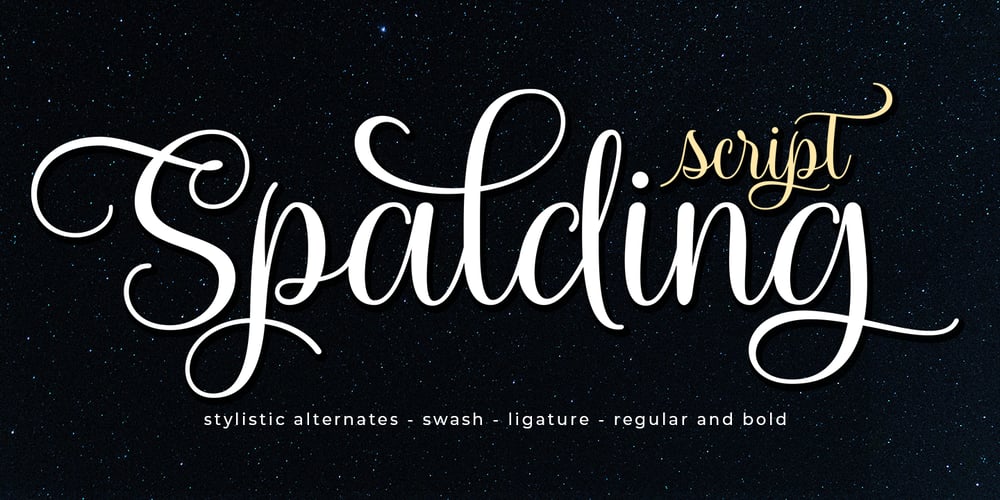
Spalding Script
Spalding Script font
Spalding Script Font Family was designed by Mur Zani and published by Zane Studio. Spalding Script contains 2 styles and family package options. Spalding Script is a new modern script font with a regular base line. With a trendy and feminine style, Spalding Script looks beautiful on wedding invitations, thank you cards, quotes, greeting cards, logos, business cards, and more. Including beginning and end letters, alternatives and support for many languages.To activate the OpenType Stylistic alternative, you need a program that supports OpenType features such as Adobe Illustrator CS, Adobe Indesign & CorelDraw X6-X7, Microsoft Word 2010 or newer versions. There are additional ways to access alternatives / swash, using Character Maps (Windows), Nexus Fonts (Windows), Font Books (Mac) or software programs such as PopChar (for Windows and Mac).